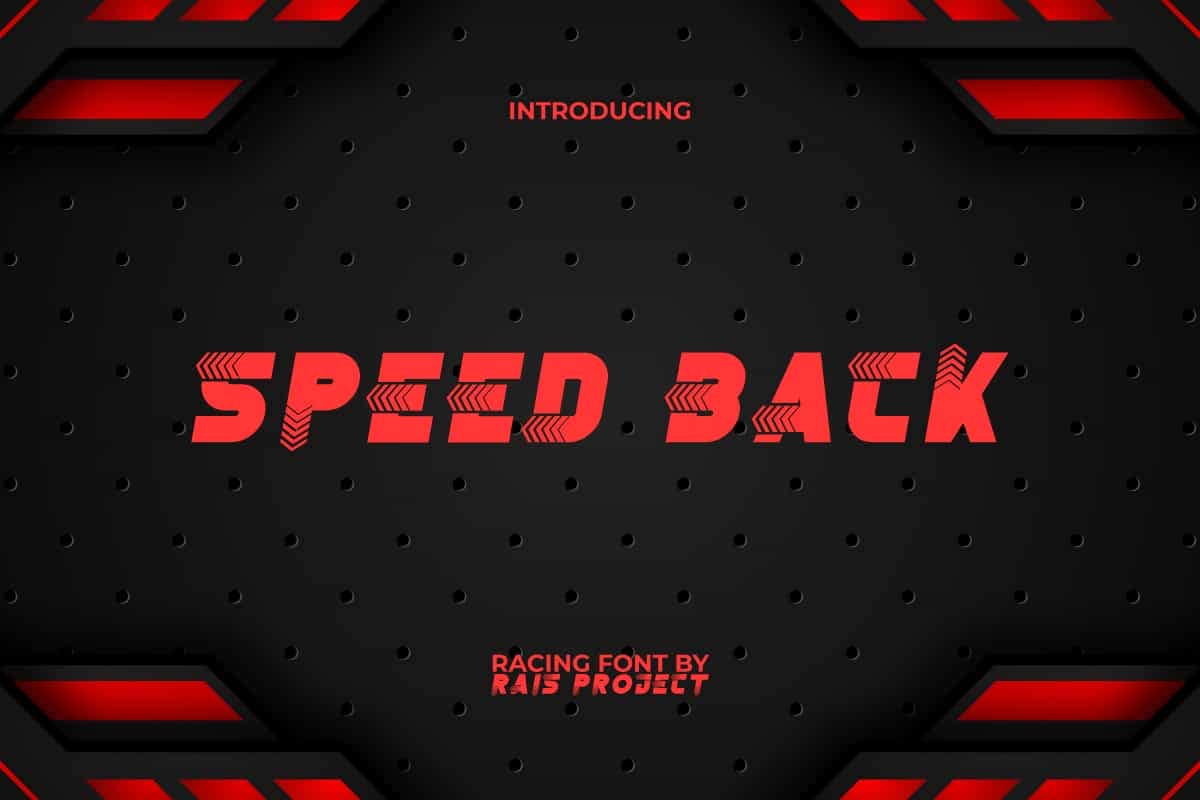
Speed Back Display Font
Speed Back Font is a decorated racing with tire path textured display font.Use this font now to make your design standout!
Speed Back Font is a decorated racing with tire path textured display font.It will be good for any designs, such as advertisement, brand image, custom design, invitation, label, marketing material, poster, product packaging, quotes, signage, stationery, website page, and more! You can see the demo font below, input any word you want so you can see what it looks like:
Speed Back Display Font includes a full set of ALL CAPS for Uppercase and Lowercase Letters, Numerals, and large range of Punctuation. This awesome font with a racing vibe will be suitable for various industries, such as automotive, cafe, event or festival, fashion, game, printing, publishing, photography, sports, etc. What you get: